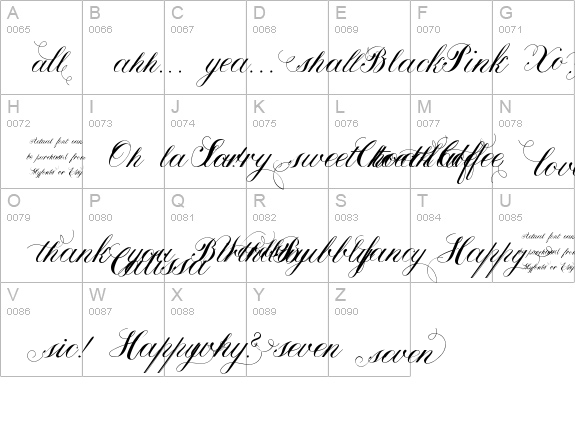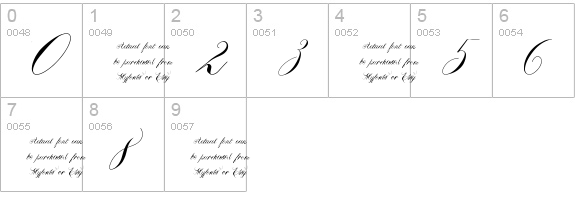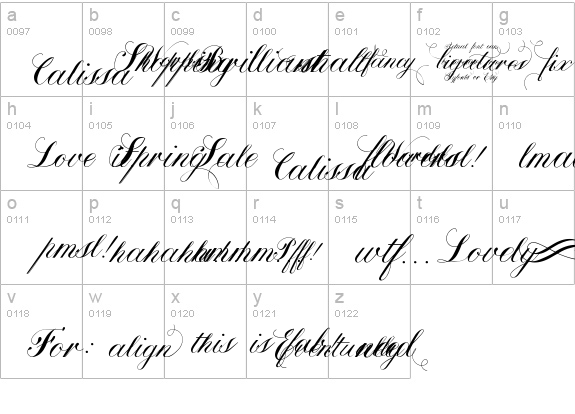
Calissa Words font is a stunning and elegant typeface that will add a touch of sophistication to any design project. Its clean lines and graceful curves make it perfect for a wide range of applications, from branding and packaging to invitations and headlines. What sets Calissa Words font apart is not only its exquisite design, but also the fact that it is available for free. That's right, you can download and use this beautiful font without spending a dime. It's a great option for designers and creatives who are looking to add a touch of elegance to their work without breaking the bank. With its versatile and timeless design, Calissa Words font is suitable for both print and digital projects. Whether you're designing a wedding invitation, creating a logo for a high-end brand, or crafting a magazine layout, this font will elevate your design and make it stand out. Downloading Calissa Words font is quick and easy. Simply visit FontsMarket.com, where you can freely access and download this exquisite typeface. Once you have it in your collection, the possibilities are endless. You can experiment with different weights and styles, mix and match with other fonts, and create unique and captivating designs. So why wait? Enhance your design projects with the beauty and elegance of Calissa Words font, and enjoy the freedom of downloading it for free at FontsMarket.com.